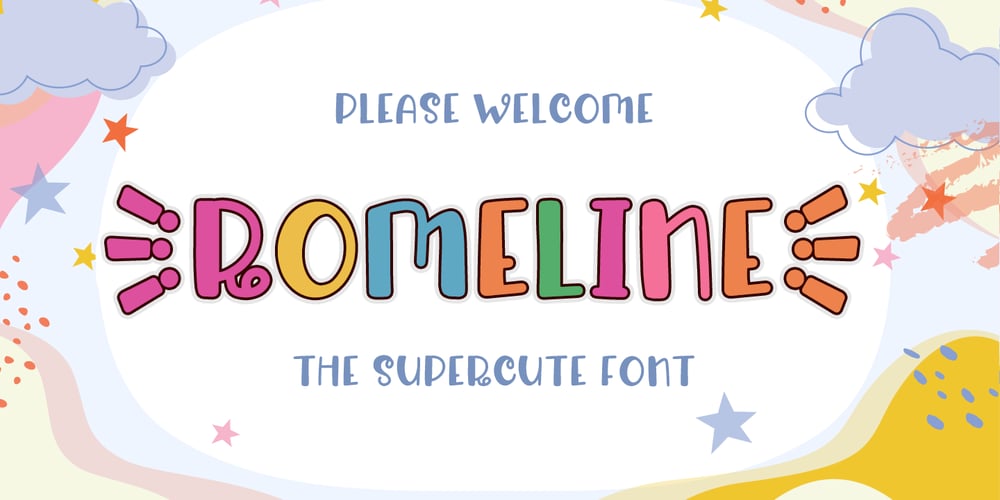
Romeline Font Family was designed by Abdul Malik Wisnu and published by Almarkha Type. Romeline contains 1 styles and family package options. Rameline is a Supercute Display font that will make your designs look modern, unique and fun. It’s perfect for labels, quotes, posters, DIY projects, branding, packaging, greeting cards, websites, photography overlays, signs, window art, scrapbooking, tags and so much more!